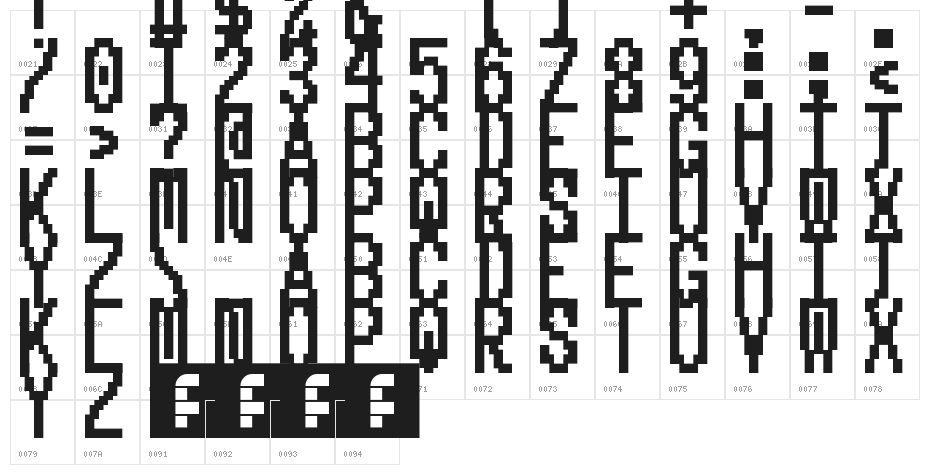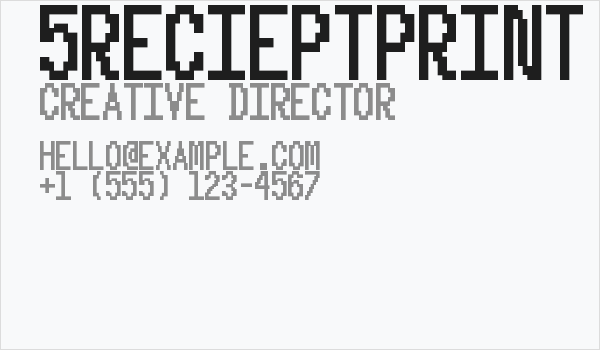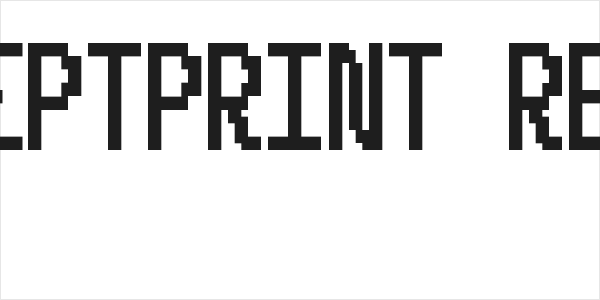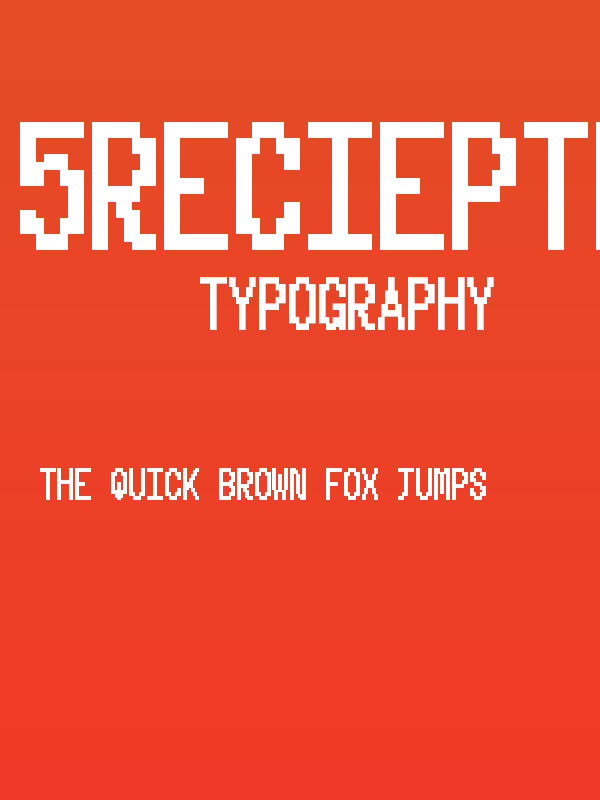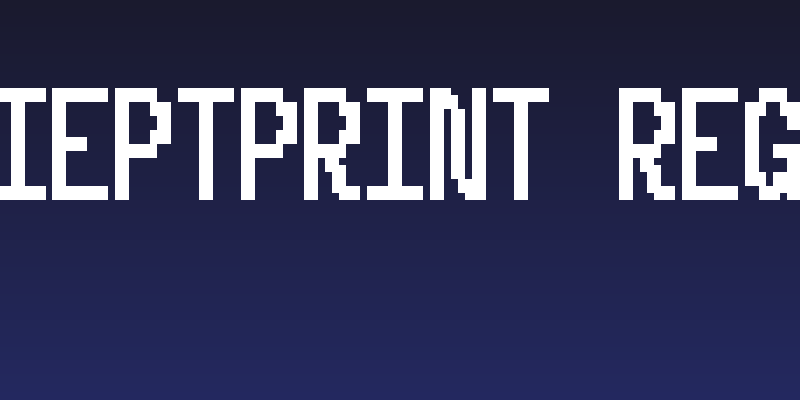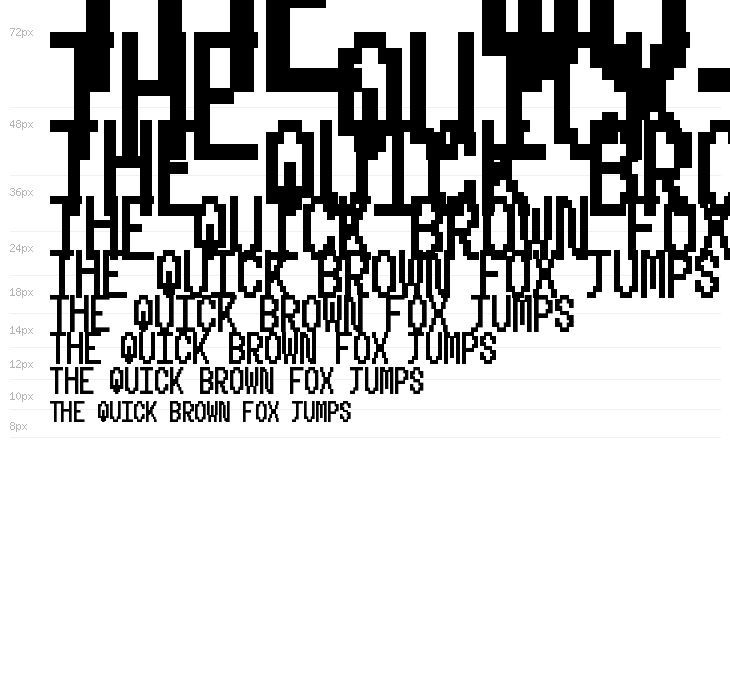
5Recieptprint Regular Font
5Recieptprint Regular Description
This font features a pixelated, blocky design reminiscent of early digital displays and dot matrix printers. The characters are uniformly bold with a consistent stroke width, creating a strong visual impact. The uppercase and lowercase letters maintain a similar height, contributing to a monospaced appearance. The numerals and special characters are designed with the same pixelated style, ensuring uniformity across all glyphs. This font's retro aesthetic is perfect for projects that aim to evoke a sense of nostalgia or digital simplicity.
| Overall Style | Retro, Digital |
| Use Case | Headlines, Logos, Digital displays |
| Proposed Projects | Ideal for retro-themed designs, digital art, video game graphics, and tech-related branding. |